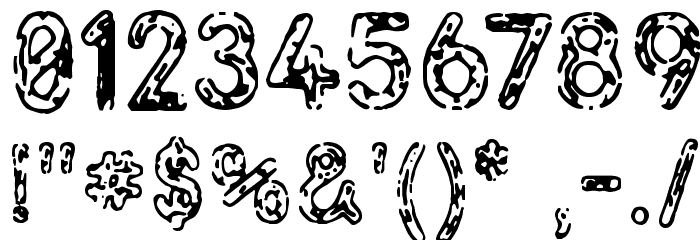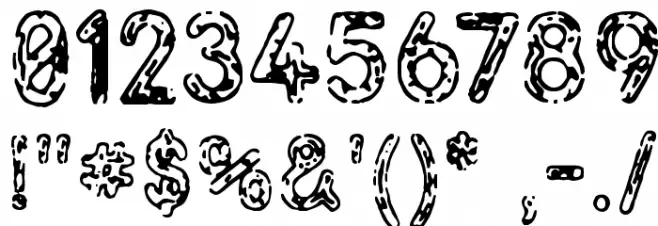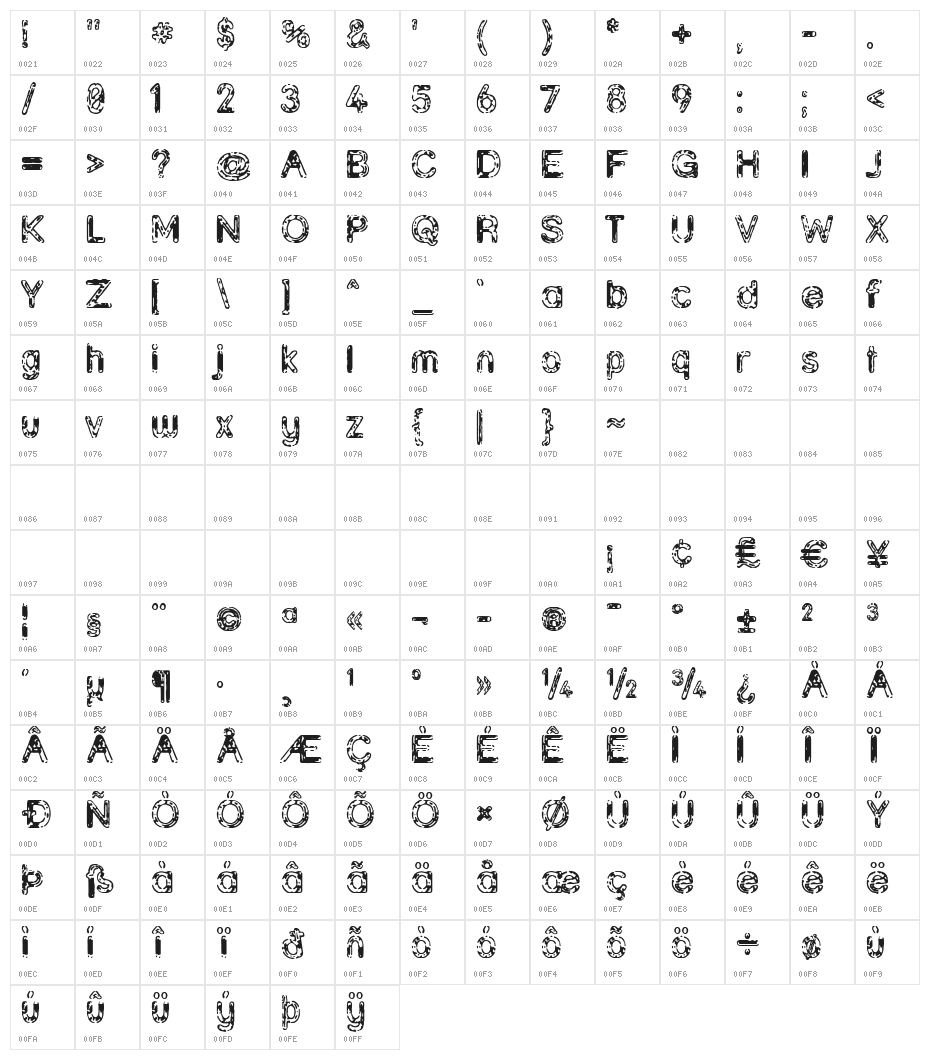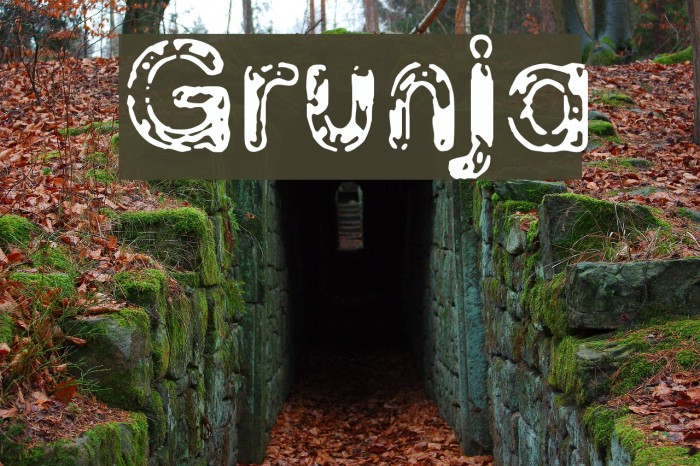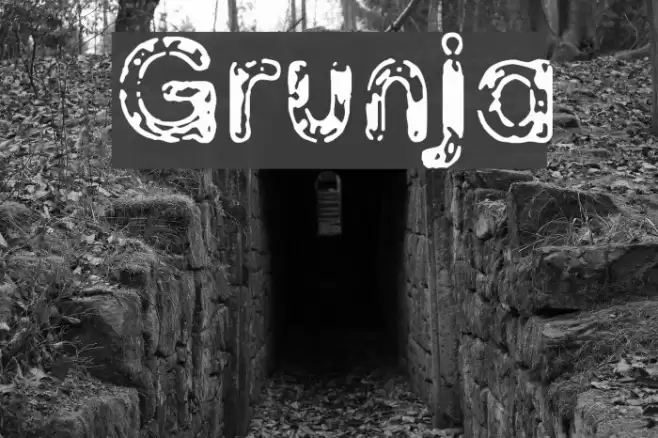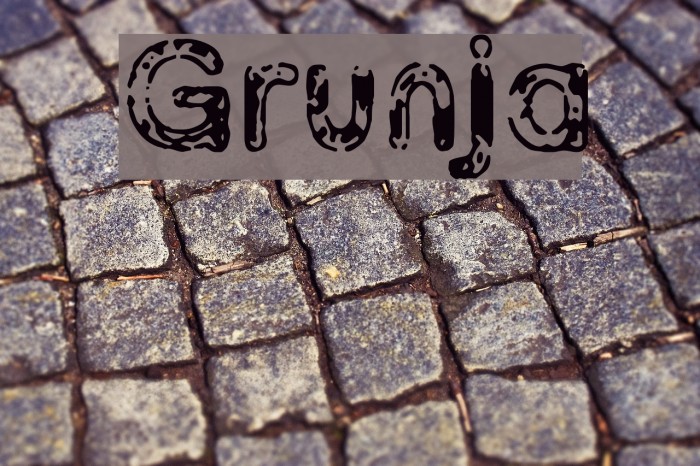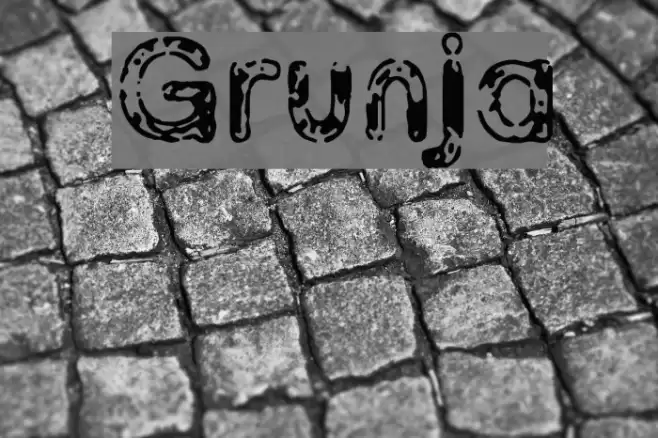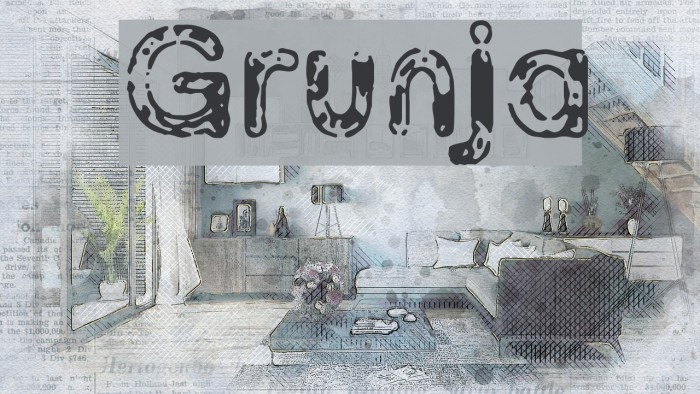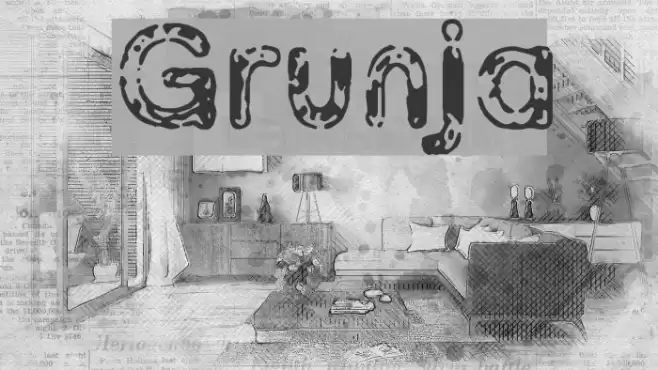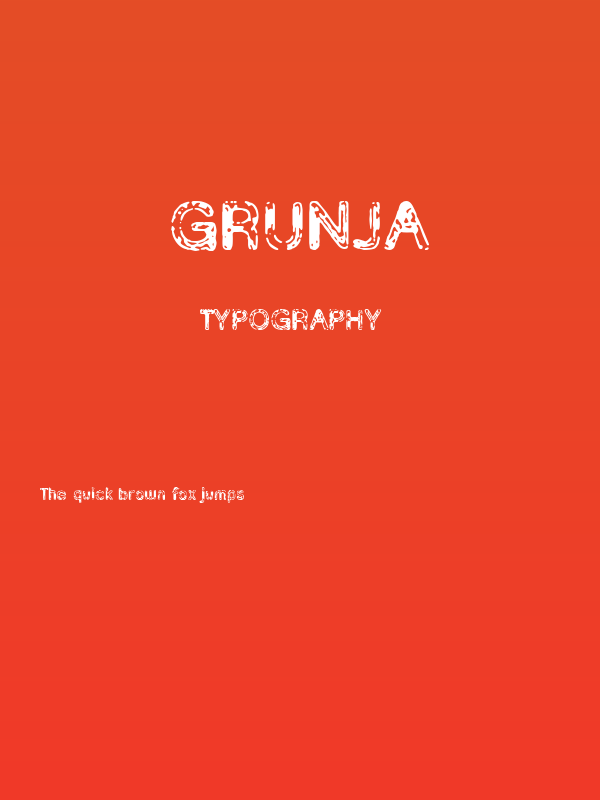
Grunja Font
Grunja Description
This font features a distressed, grunge aesthetic with a bold and rugged appearance. The characters are designed with irregular, worn-out edges, giving them a textured and weathered look. The uppercase and lowercase letters maintain a consistent style, with a slightly condensed form that enhances their boldness. The numerals and special characters follow the same distressed pattern, ensuring a cohesive look across all glyphs. This font's unique style makes it stand out, ideal for projects that require a raw, edgy feel.
| Overall Style | Grunge, Edgy |
| Proposed Projects | Ideal for music album covers, posters, urban-themed designs, and branding that requires a gritty, edgy look. |